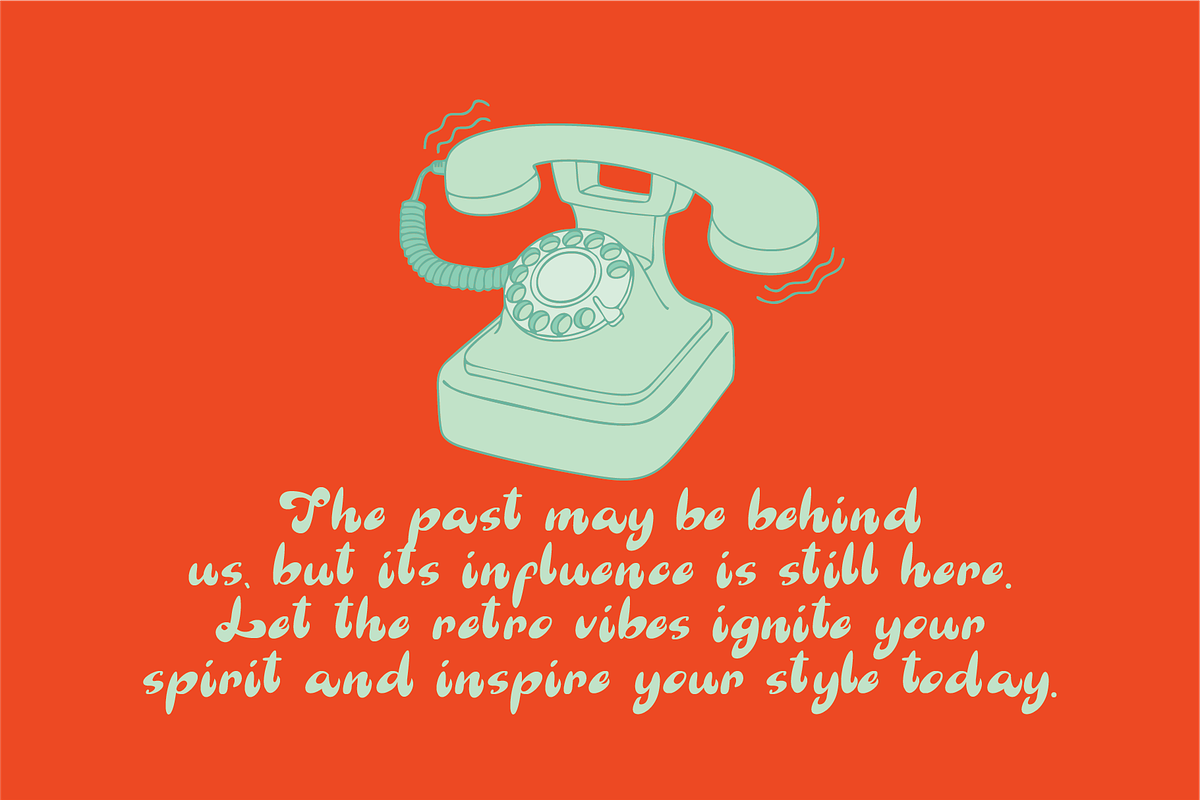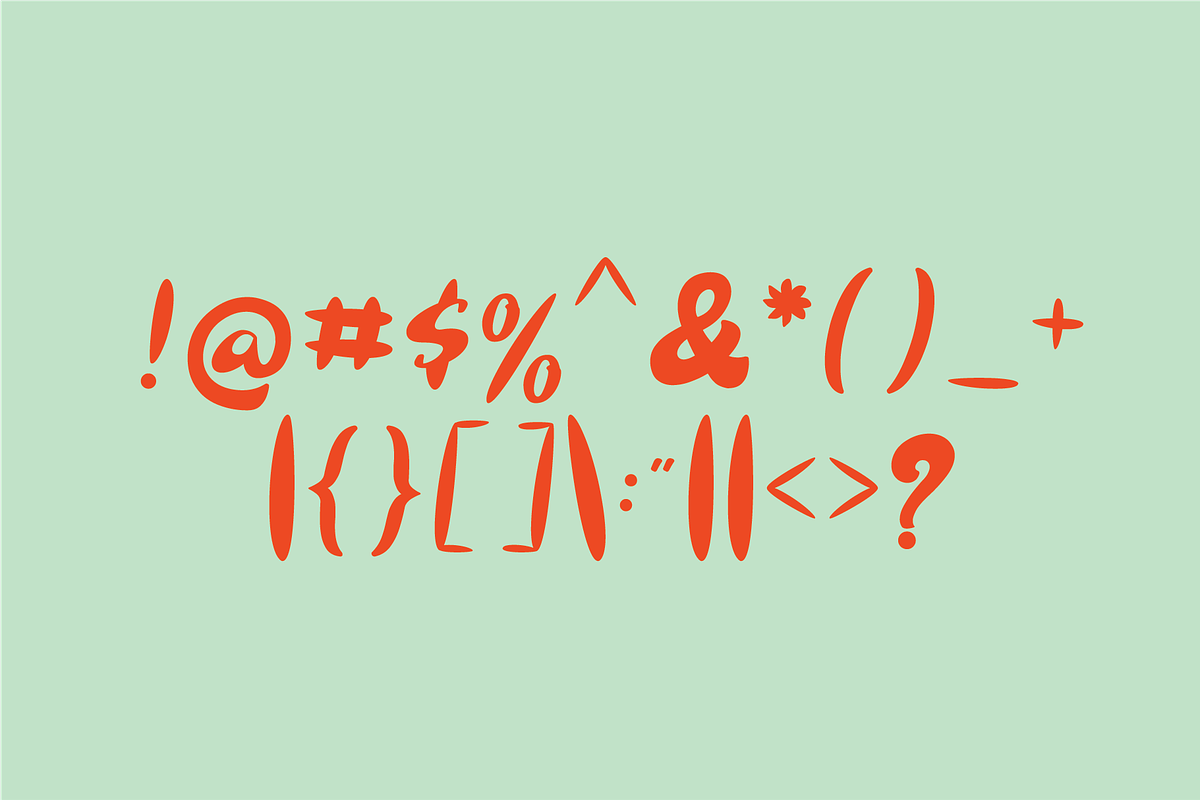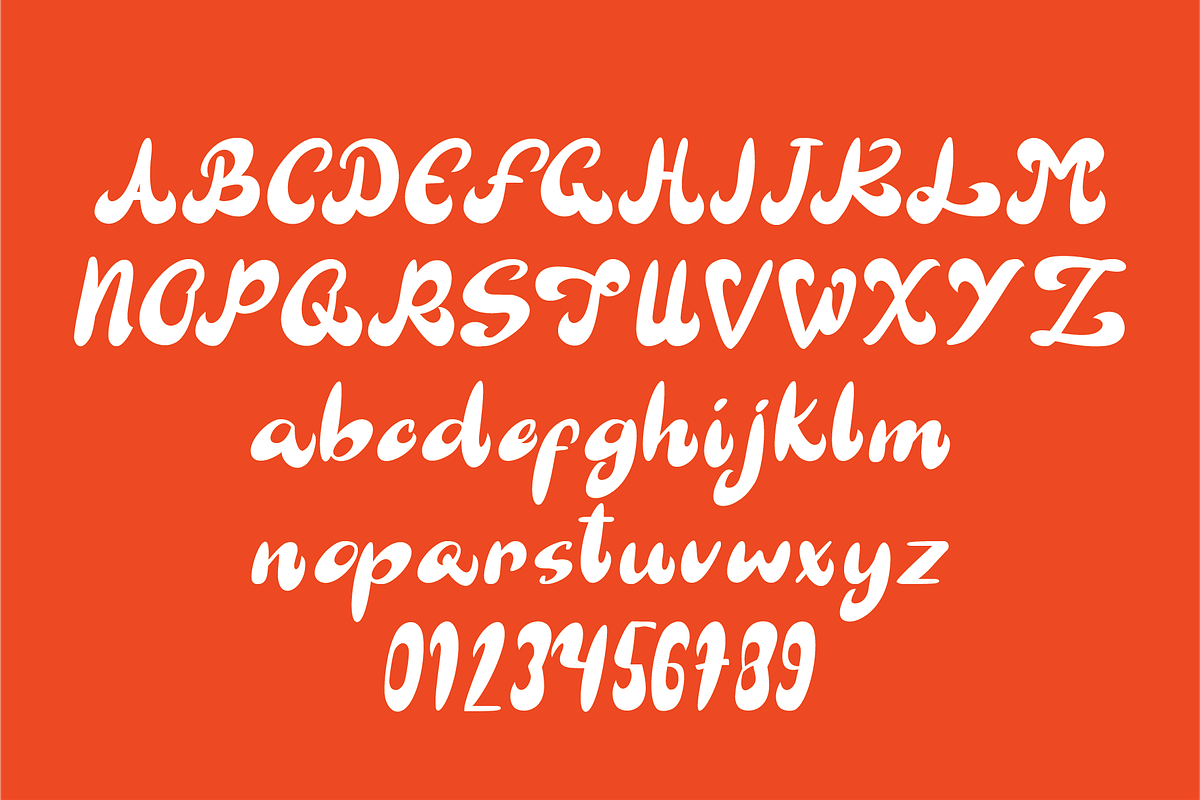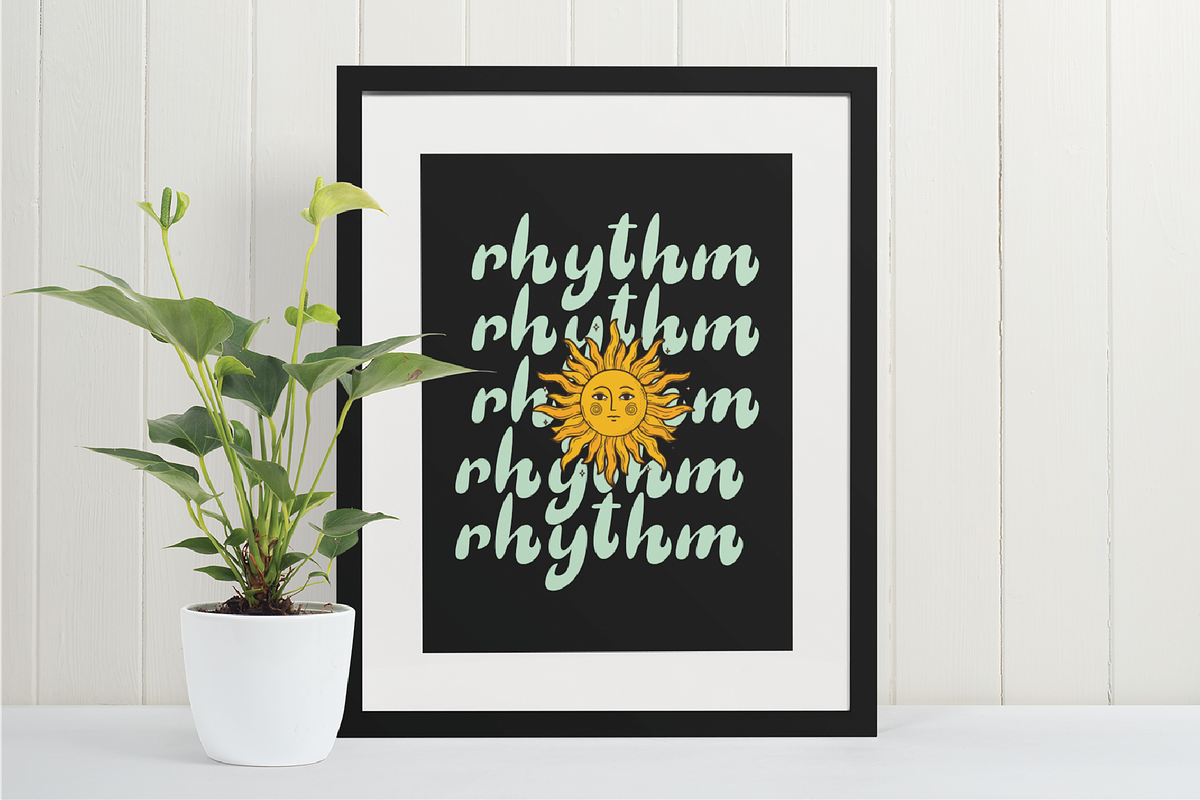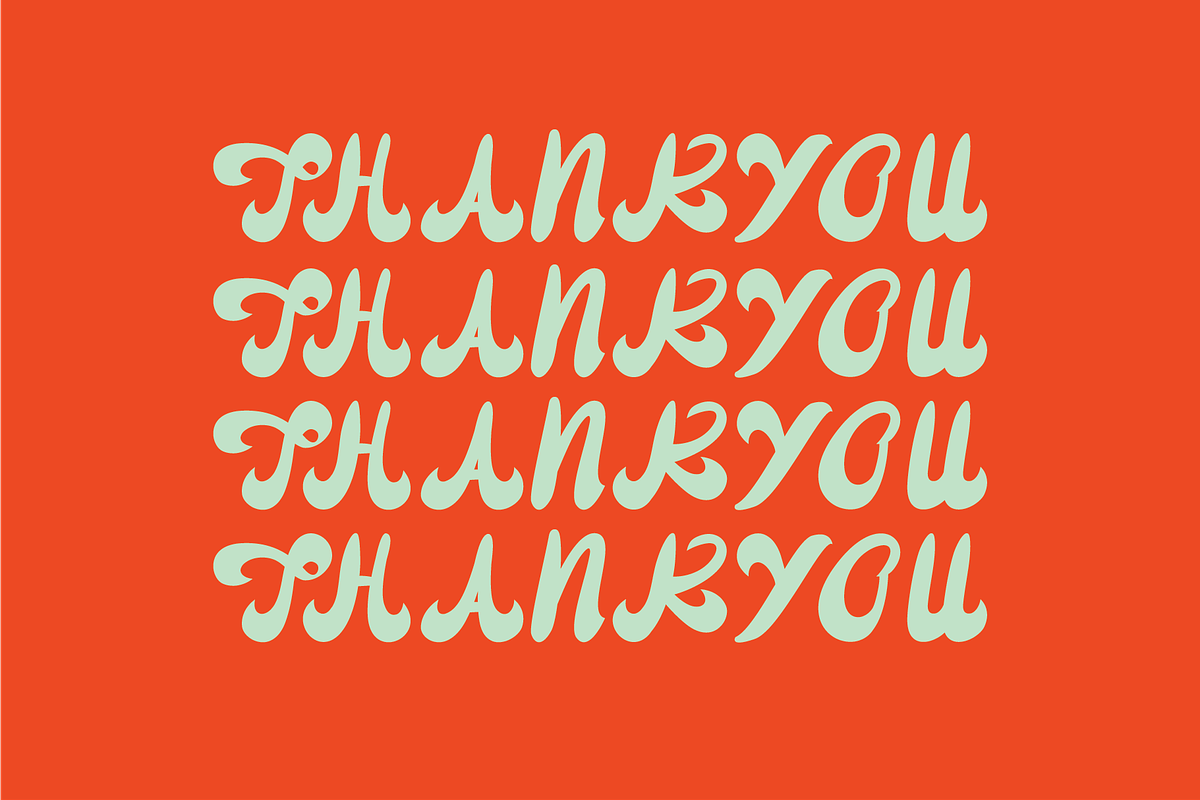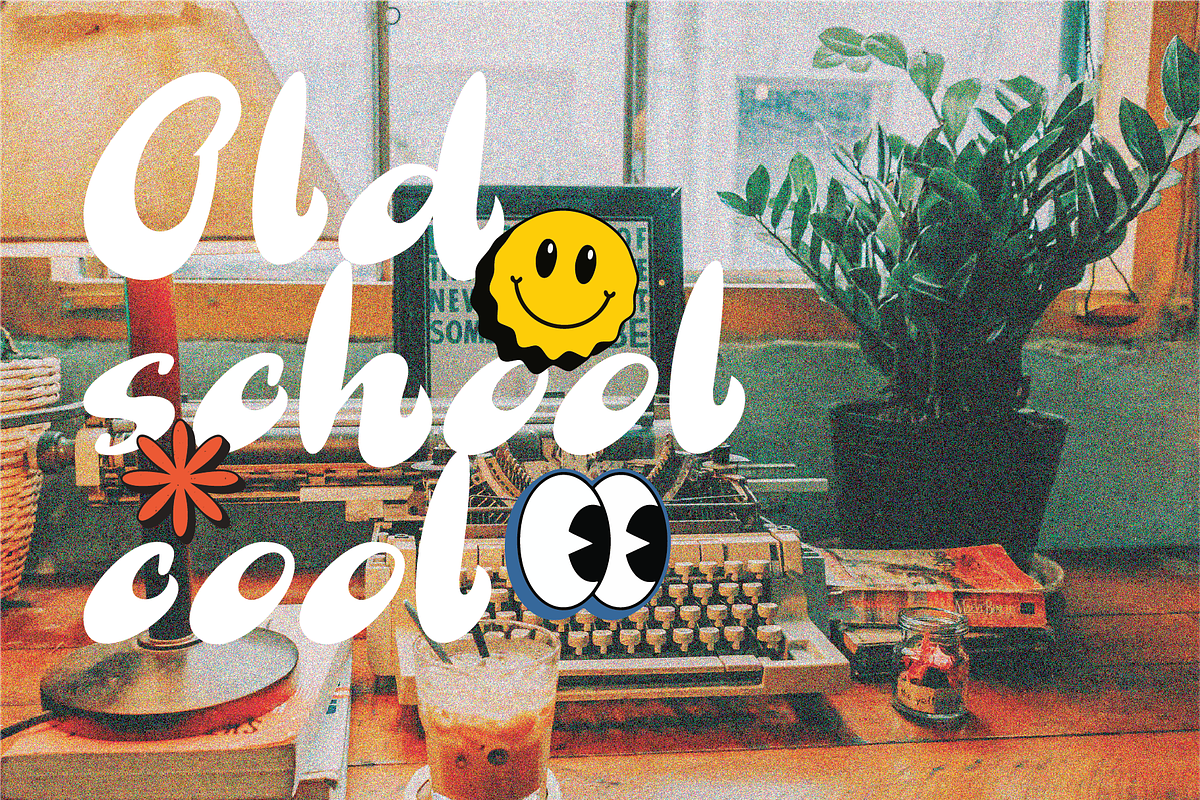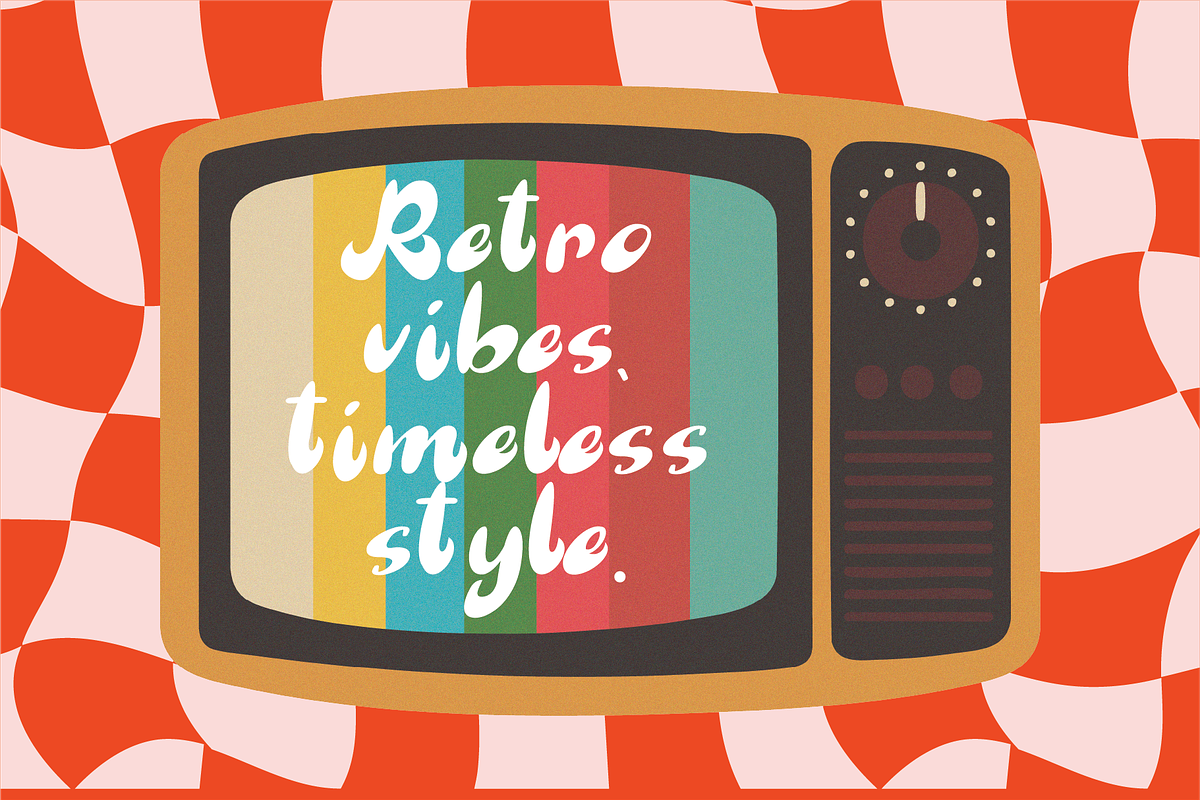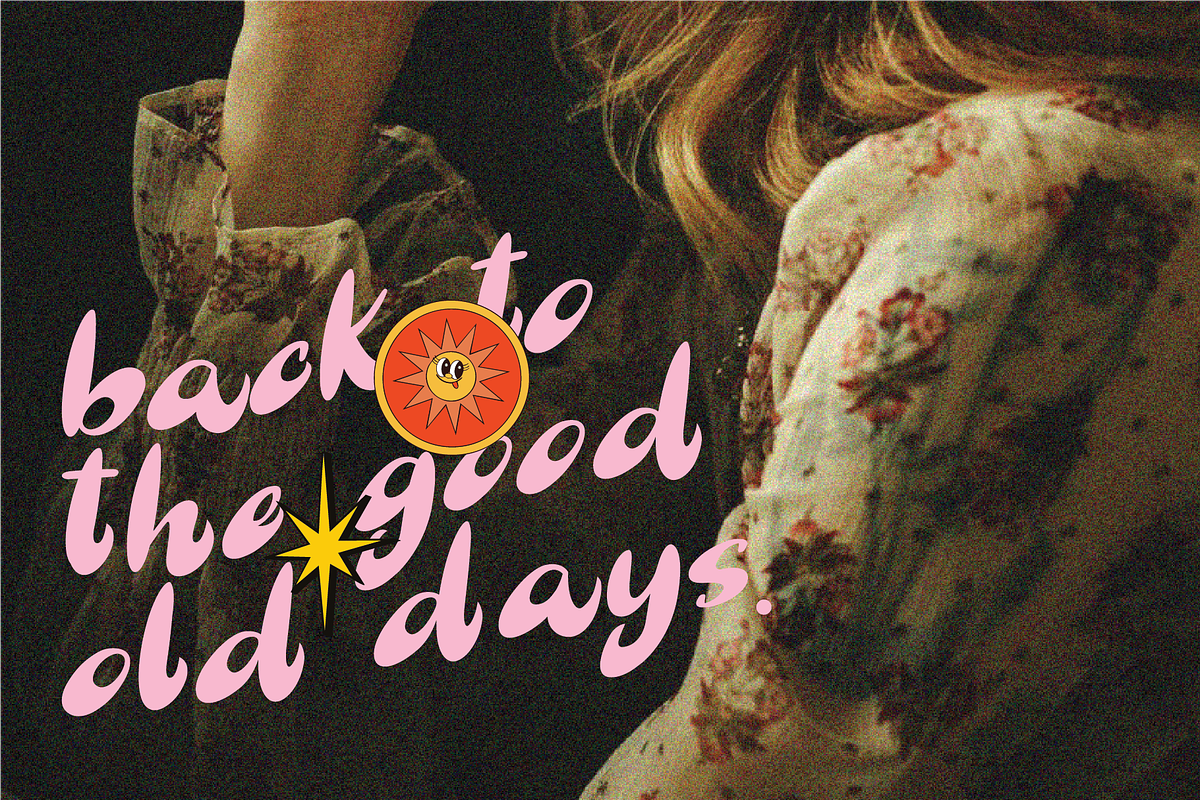
Yello Hook Playful Font
Yellow Hook is a bold and funky handwritten display font full of personality and retro charm. Its chunky curves and playful flow bring a sense of humor and spontaneity to every design, like a handwritten note scribbled in the middle of a good time.
- Numbers, marks and symbols